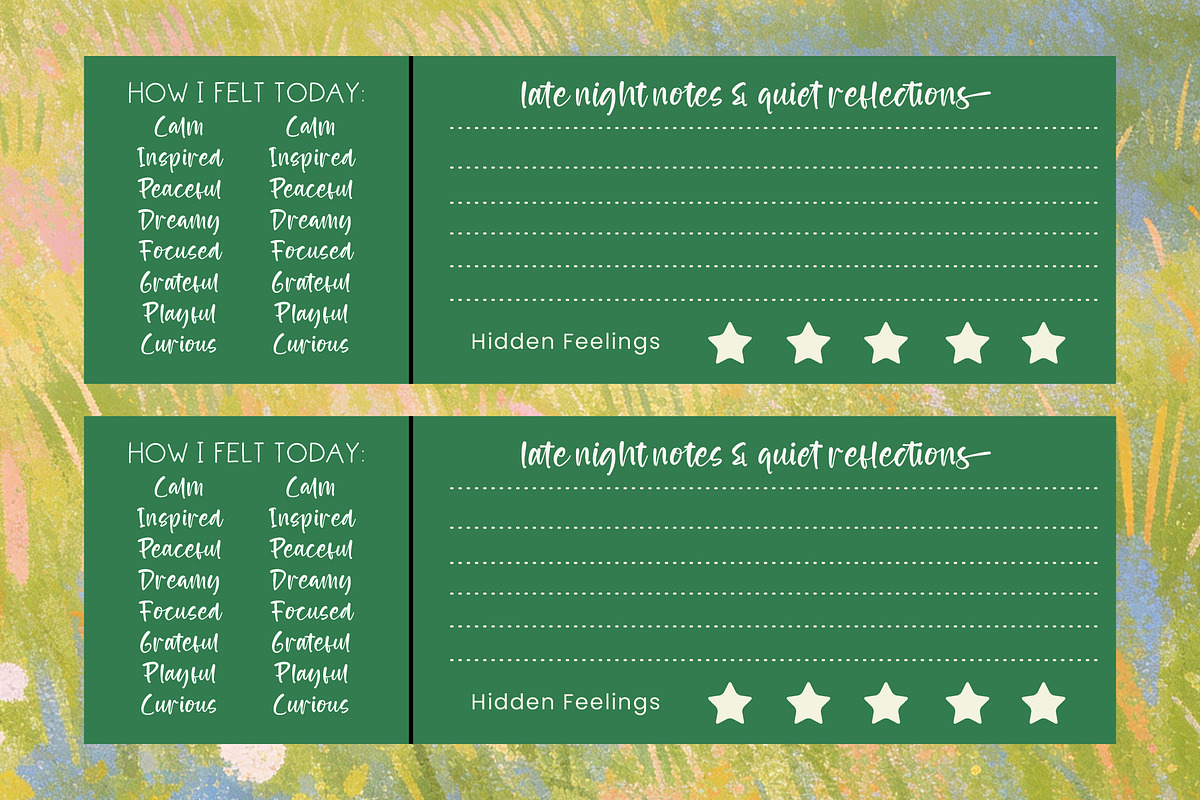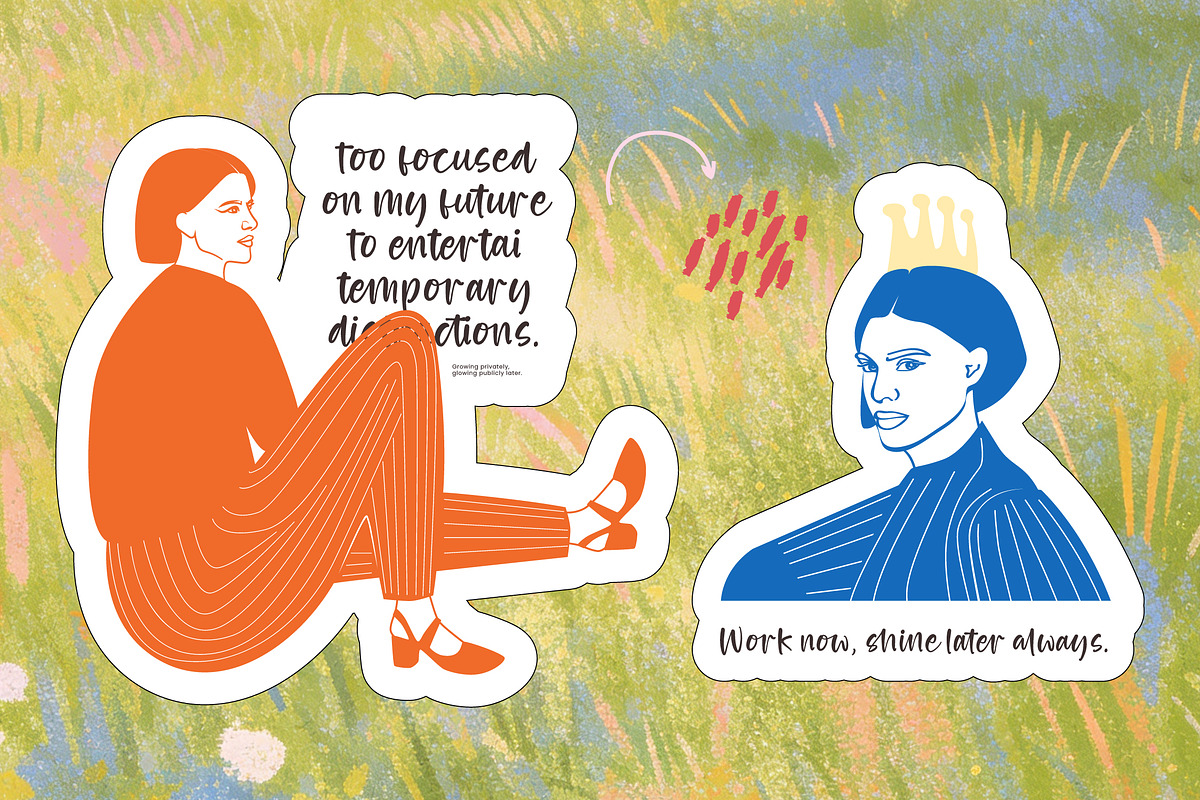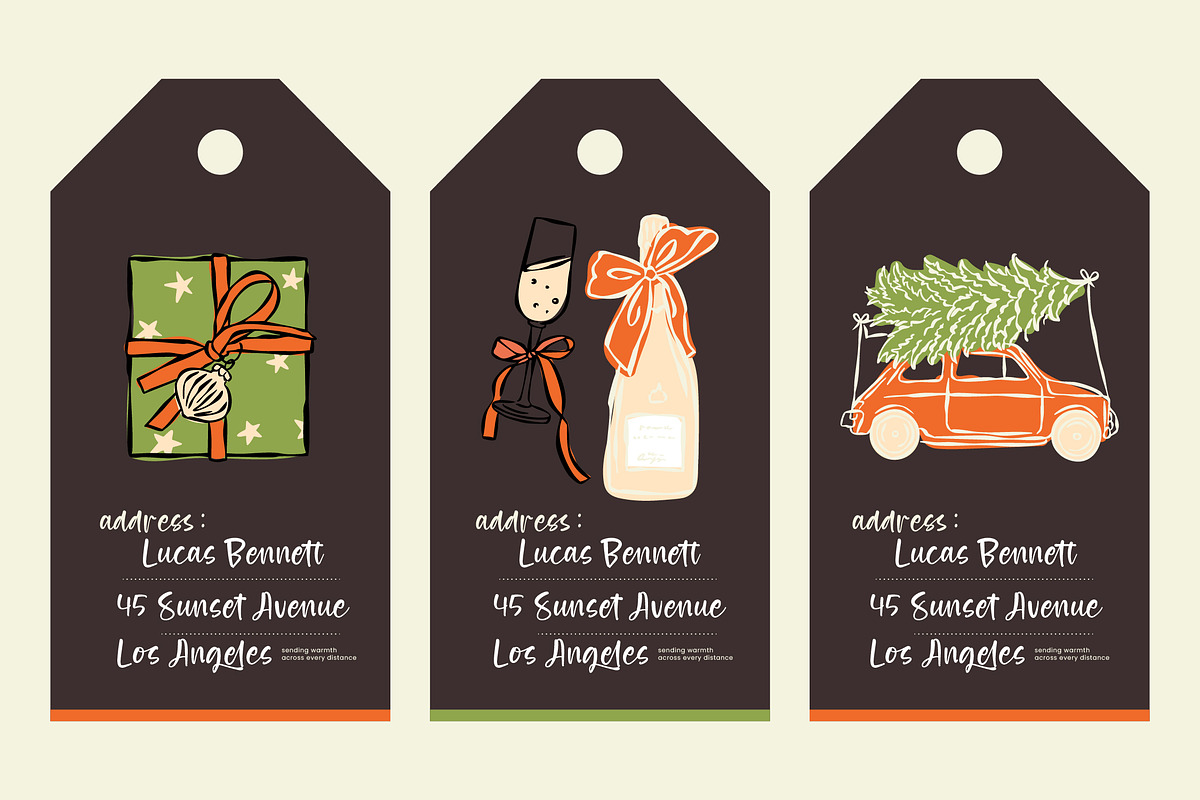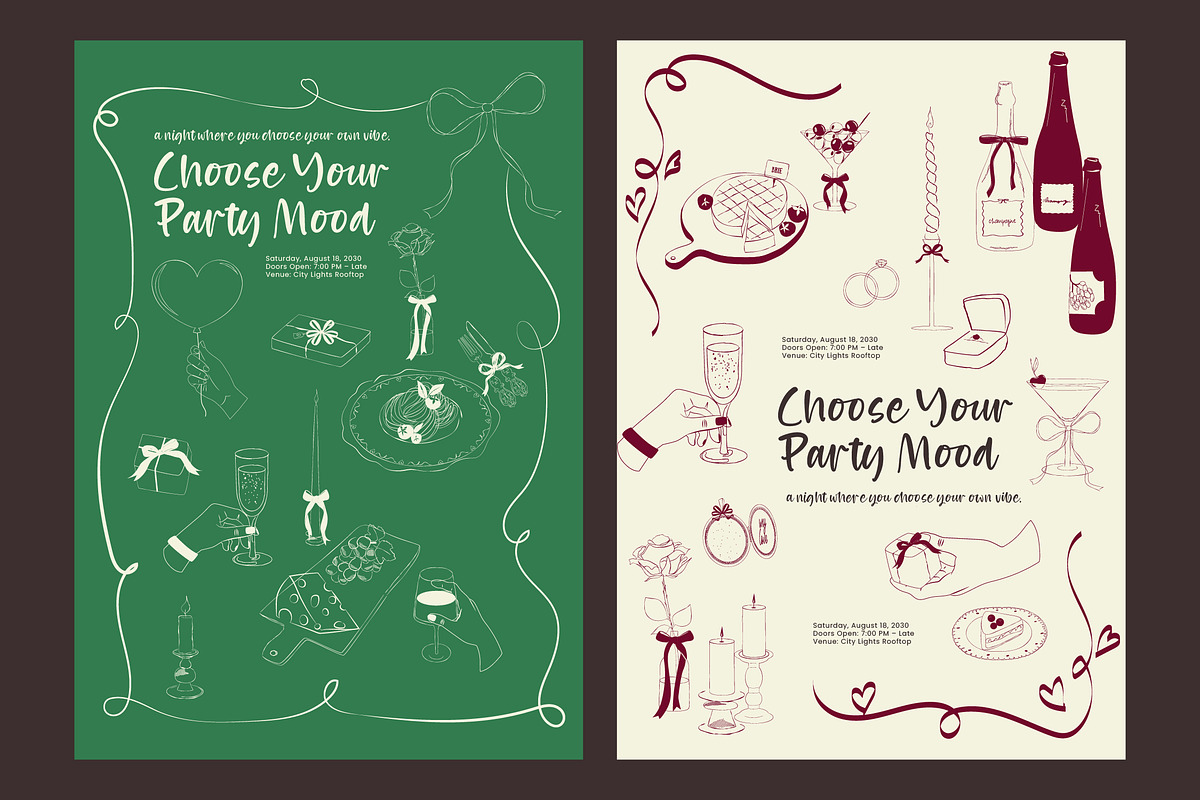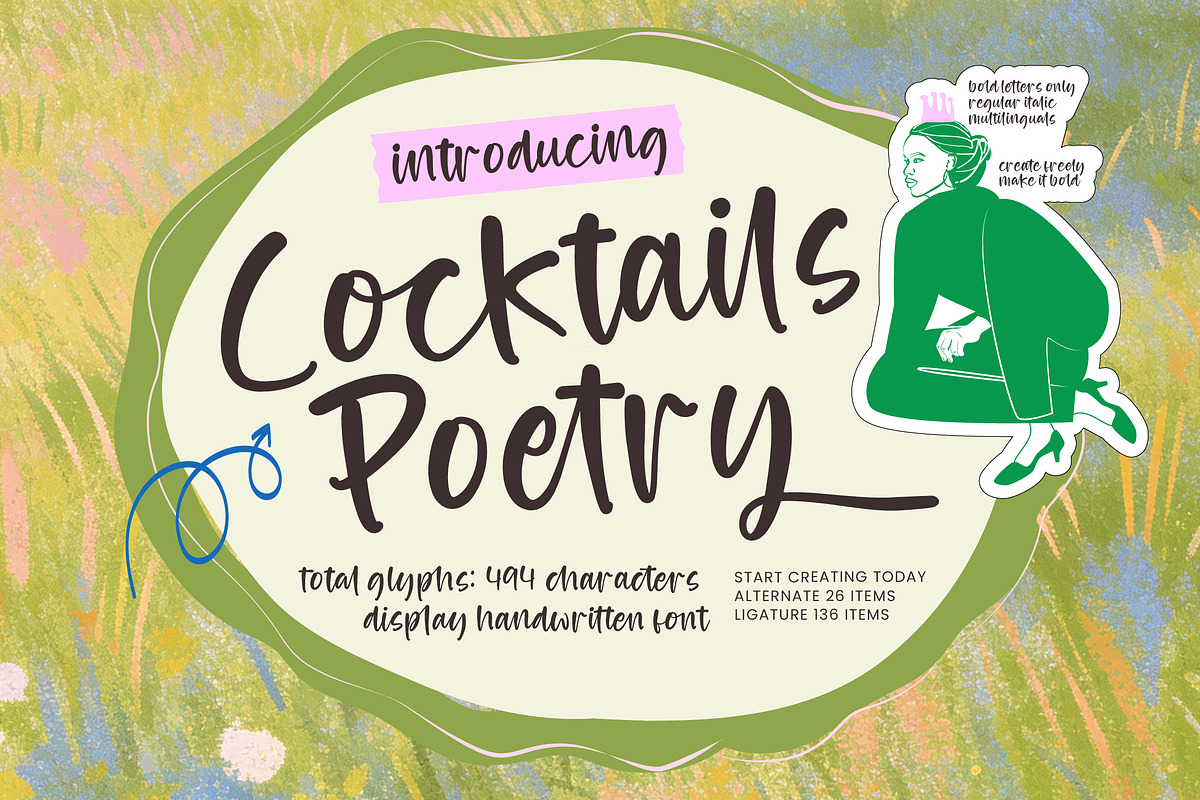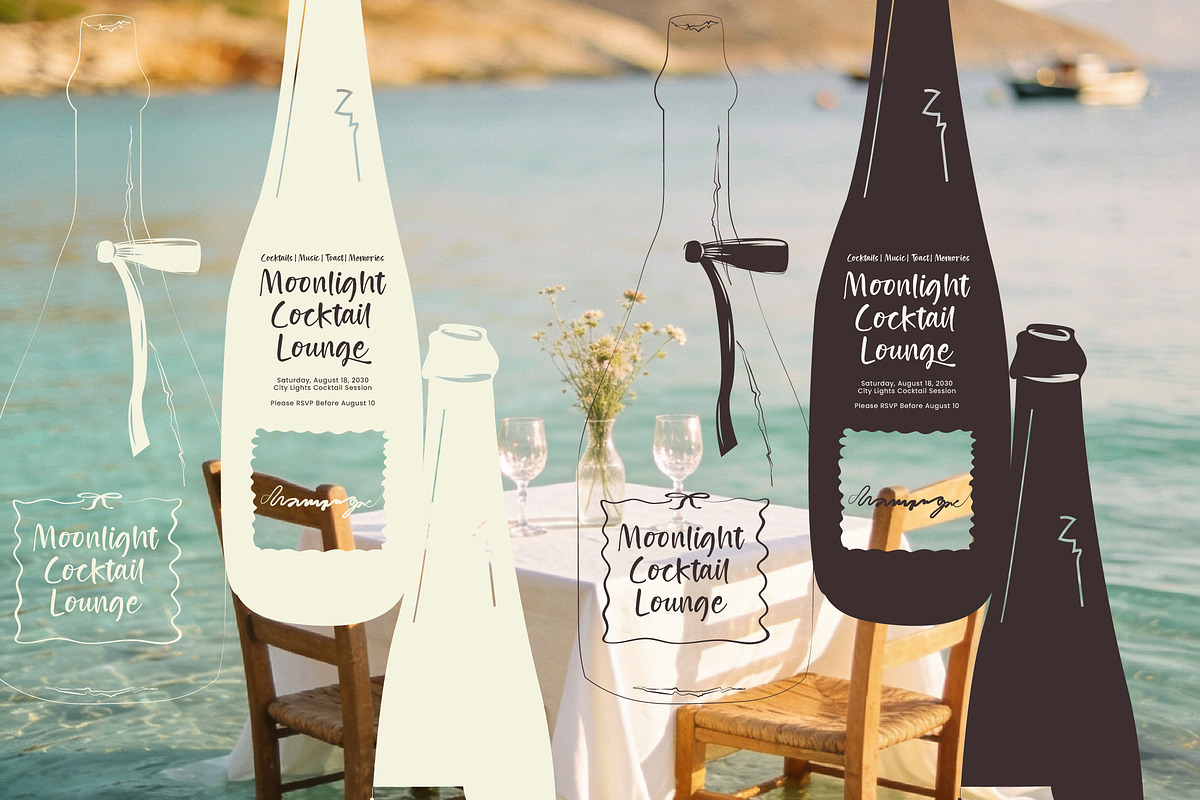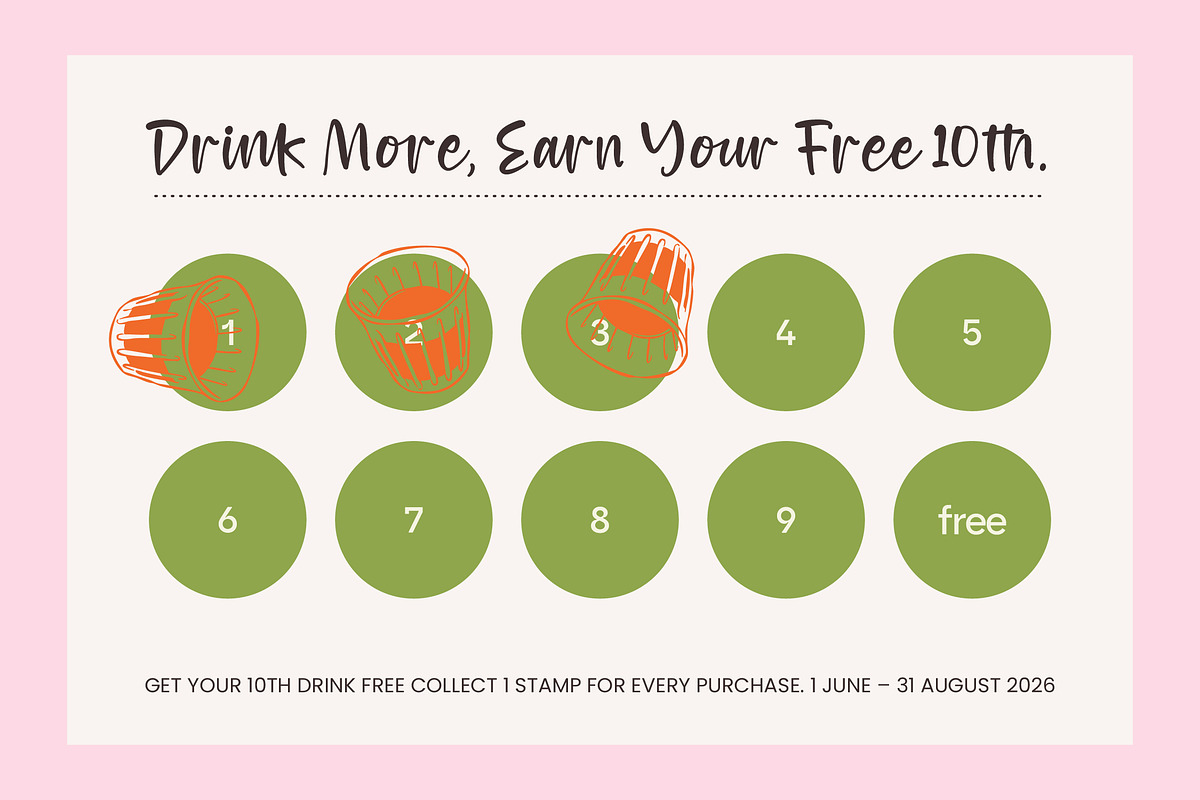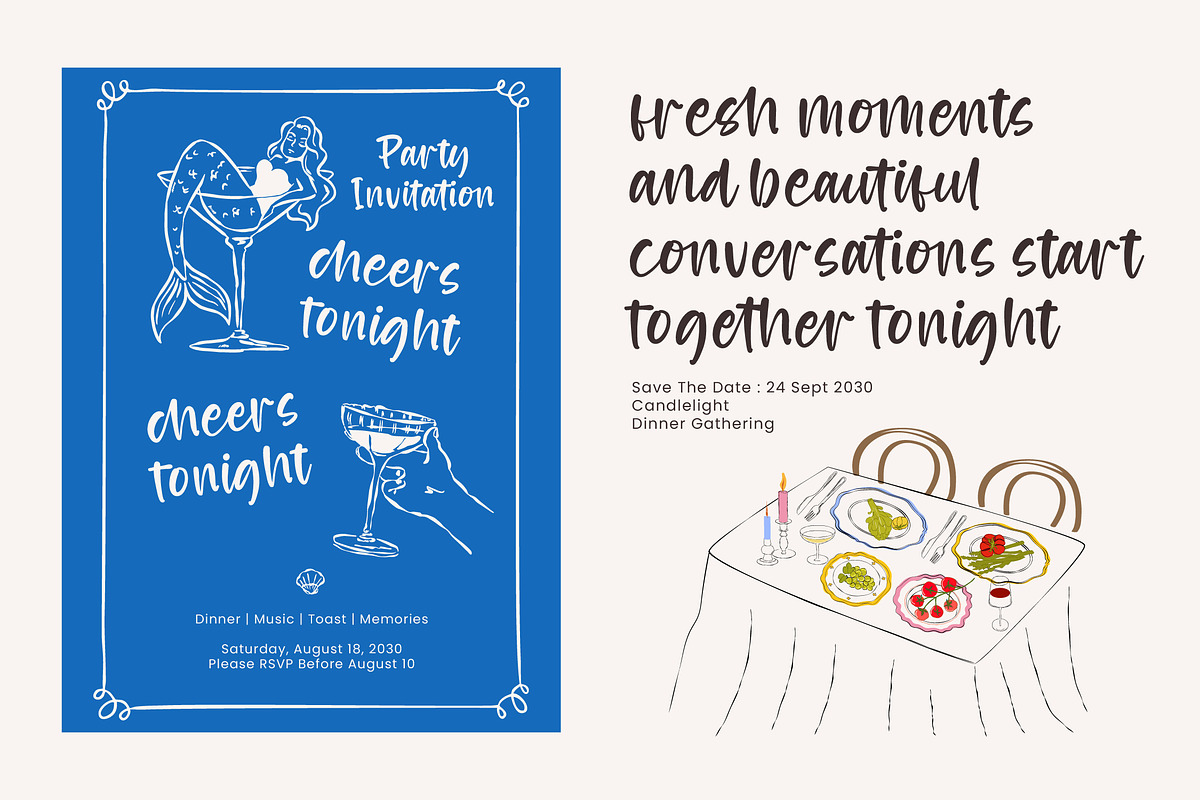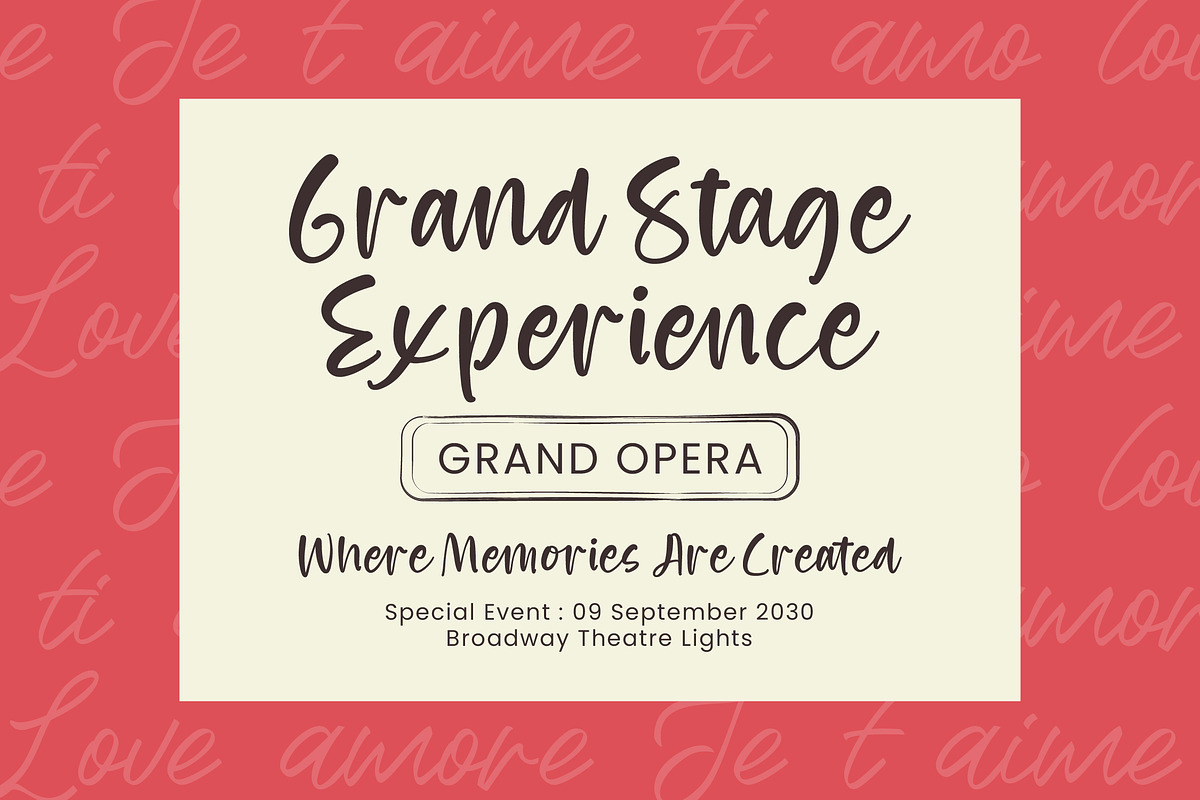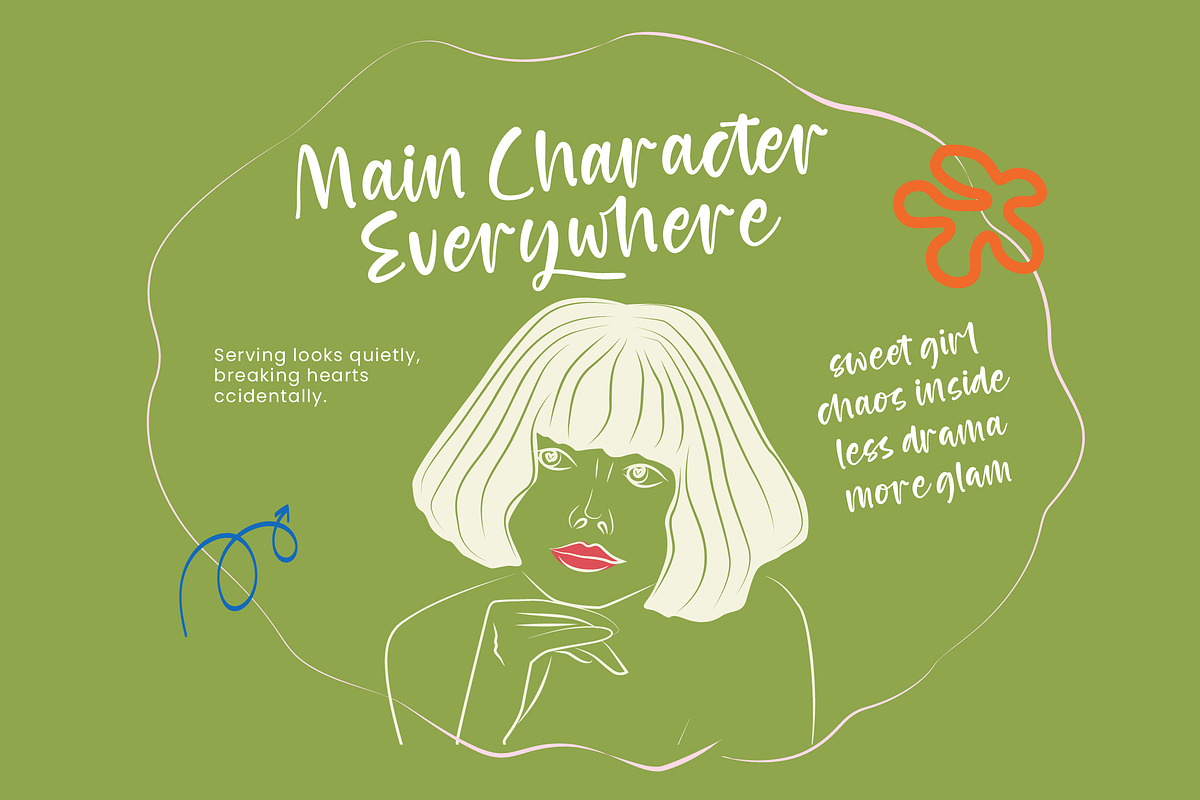
Cocktails Poetry Display Handwritten
Cocktails Poetry – Display Handwritten Font , Elevate your creative vision with the organic elegance of Cocktails Poetry – Display Handwritten Font. This premium typeface captures a unique hand-drawn aesthetic that balances casual sophistication with artistic flair. Designed to command attention, its fluid strokes and natural letterforms provide an authentic, human touch to any digital or print project. Whether you are aiming for a chic boutique vibe or a relaxed, modern look, this display font offers the perfect stylistic foundation for your next masterpiece.
Crafted for high-impact visual storytelling, Cocktails Poetry – Display Handwritten Font is the ultimate tool for luxury branding and bespoke packaging. It is perfectly suited for editorial design, high-end event invitations, and lifestyle marketing campaigns that require a distinct personality. From logo development to eye-catching social media assets, this font bridges the gap between professional polish and creative expression, ensuring your brand stands out in a competitive marketplace.
Technical precision meets artistic freedom with a comprehensive set of 494 glyphs and over 130 ligatures. This extensive character set allows Cocktails Poetry – Display Handwritten Font to mimic the nuances of real handwriting, offering designers a custom-lettered look with professional ease. The inclusion of stylistic alternates ensures that every word remains visually dynamic and unique, making it a versatile asset for everything from product labels to large-scale advertising displays.
Expand your brand’s presence on a global scale with a typeface designed for universality and reach. With its extensive multilingual support, Cocktails Poetry – Display Handwritten Font adapts seamlessly across global markets, making it incredibly versatile for international projects. This global compatibility combined with its high-contrast design ensures that your creative voice is heard clearly in any language, providing a seamless user experience for diverse audiences around the world.